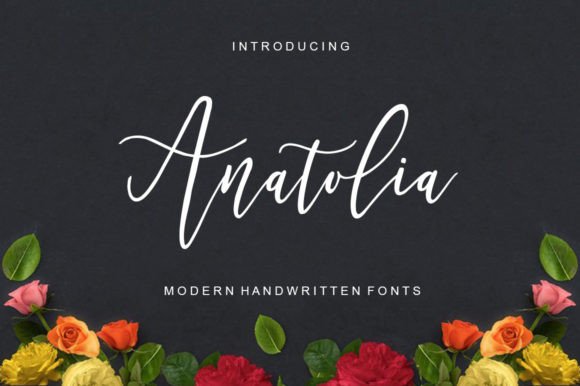
Anatolia Font: Elevate Your Designs with a Spectacular Scripted Font
When it comes to creating visually stunning designs, the right font can make all the difference. If you’re looking for a font that can elevate your creative ideas to new heights, look no further than Anatolia Font. This spectacular scripted font is incredibly versatile, making it perfect for a wide range of designs, from elegant wedding invitations to bold brand logos.
What Makes Anatolia Font So Special?
Anatolia Font is a standout in the world of typography, boasting a range of features that make it a must-have for designers. Here are just a few of the key benefits of using Anatolia Font:
- Incredibly Versatile: Anatolia Font is designed to be versatile, making it perfect for a wide range of designs, from elegant and sophisticated to bold and playful.
- PUA Encoded: This font is PUA (Private Use Area) encoded, which means you can access all of the glyphs and swashes with ease. This makes it simple to customize your designs and add unique touches.
- Spectacular Scripted Design: Anatolia Font features a beautiful scripted design that adds a touch of elegance and sophistication to any design.
Endless Design Possibilities with Anatolia Font
Anatolia Font is incredibly versatile, making it perfect for a wide range of design applications. Here are just a few ideas to get you started:
- Wedding Invitations: Create beautiful, elegant wedding invitations that set the tone for a sophisticated and memorable event.
- Brand Logos: Use Anatolia Font to create a bold and eye-catching brand logo that stands out from the crowd.
- Social Media Graphics: Add a touch of elegance and sophistication to your social media graphics, from Facebook posts to Instagram stories.
- Packaging Design: Use Anatolia Font to create stunning packaging designs that elevate your brand and make your products stand out.
Tips for Working with Anatolia Font
To get the most out of Anatolia Font, here are a few typography tips to keep in mind:
- Experiment with Font Sizes: Anatolia Font looks great in a range of font sizes, from large and bold to small and delicate.
- Play with Swashes: The PUA encoding of Anatolia Font makes it easy to add unique swashes and glyphs to your designs. Experiment with different combinations to find the perfect look.
- Pair with Other Fonts: Anatolia Font pairs beautifully with a range of other fonts. Try pairing it with a bold sans-serif font for a striking contrast.
The Benefits of Using Anatolia Font
So why should you choose Anatolia Font for your next design project? Here are just a few of the key benefits:
- Elegance and Sophistication: Anatolia Font adds a touch of elegance and sophistication to any design, making it perfect for high-end brands and luxury products.
- Versatility: Anatolia Font is incredibly versatile, making it perfect for a wide range of design applications.
- Easy to Use: The PUA encoding of Anatolia Font makes it easy to access all of the glyphs and swashes, making it simple to customize your designs.
In conclusion, Anatolia Font is a spectacular scripted font that can elevate your designs to new heights. With its incredibly versatile design, PUA encoding, and range of features, it’s perfect for a wide range of design applications. Whether you’re creating elegant wedding invitations, bold brand logos, or stunning packaging designs, Anatolia Font is the perfect choice. So why wait? Add Anatolia Font to your favorite creative ideas and notice how it makes them come alive!